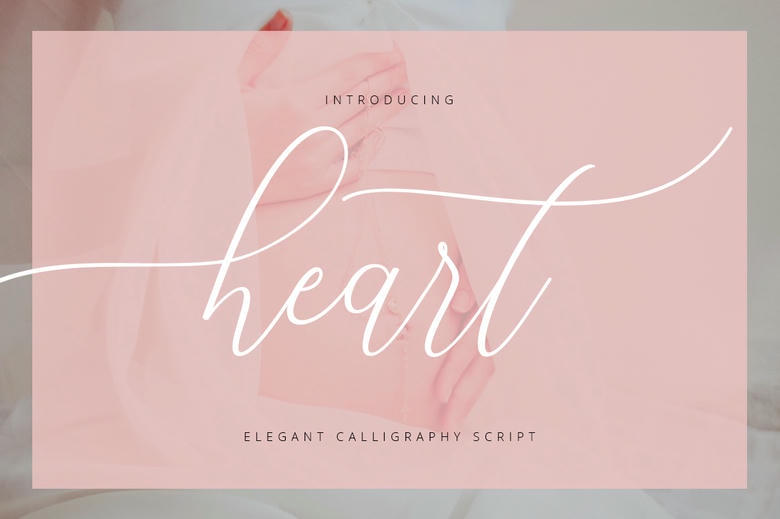
Heart is a stunningly sweet and delicious handwritten font with a cool vibe. It will turn any design idea into a true piece of art. This product is part of Creative Fabrica’s free font collection.
Heart Handwritten Script Font